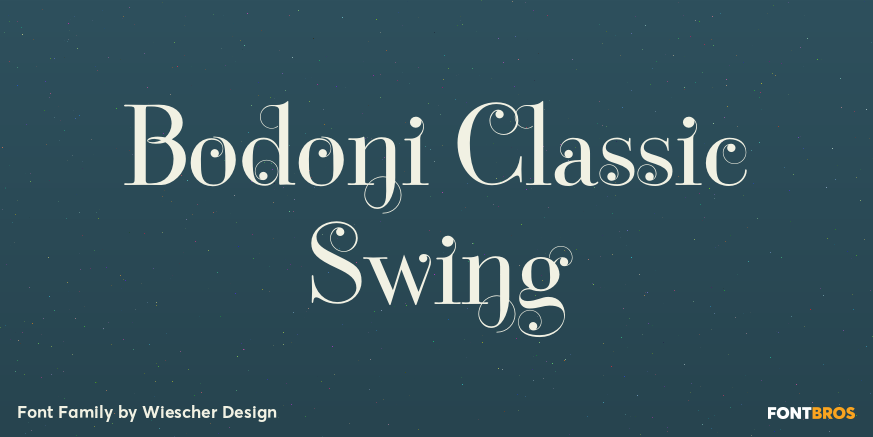
Bodoni Classic Swing
About Bodoni Classic Swing
Bodoni Classic Swing is another of my decorative additions to Bodoni\’s family of typefaces. Bodoni did not design decorative versions. His quest was for purity in book design. He was purely as a printer who had to cut his own fonts because there simply…